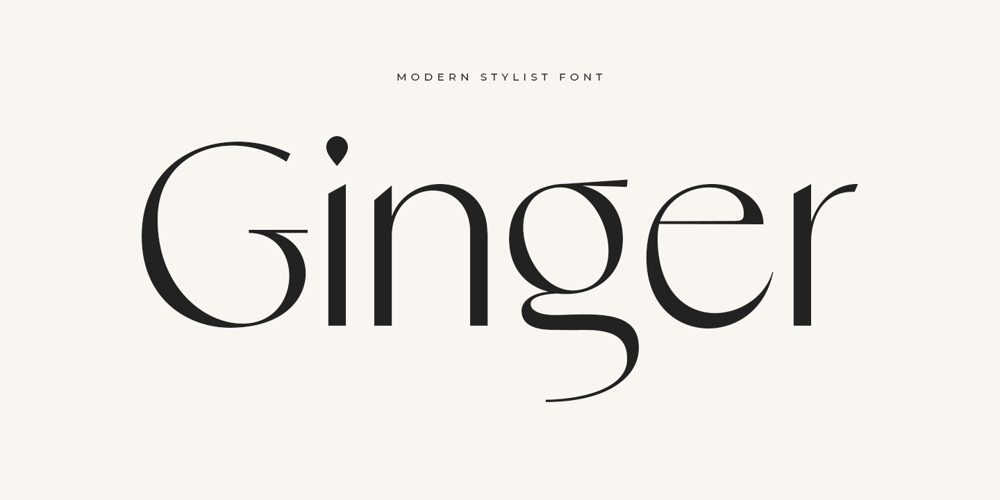
Ginger Style
Ginger Style font
Ginger Style Font Family was designed by Zamroni Hamzah and published by Sensatype Studio. Ginger Style contains 1 styles and family package options. Ginger is a Modern Stylish Font.In a new generations, we analyze that any designer or brand owner need to make their brand standout. As our focus that analyze any typeface that helps to leverage any logo design to look more modern and unique. We prepared this font with any unique characters to help you create unlimited variations for your creative needs.Ginger font ready with: Any options to get creative variations with unique letters Preview as a inspirations that you can do with Ginger font Ready with Lowercase and Uppercase characters Wish you enjoy our font. 🙂